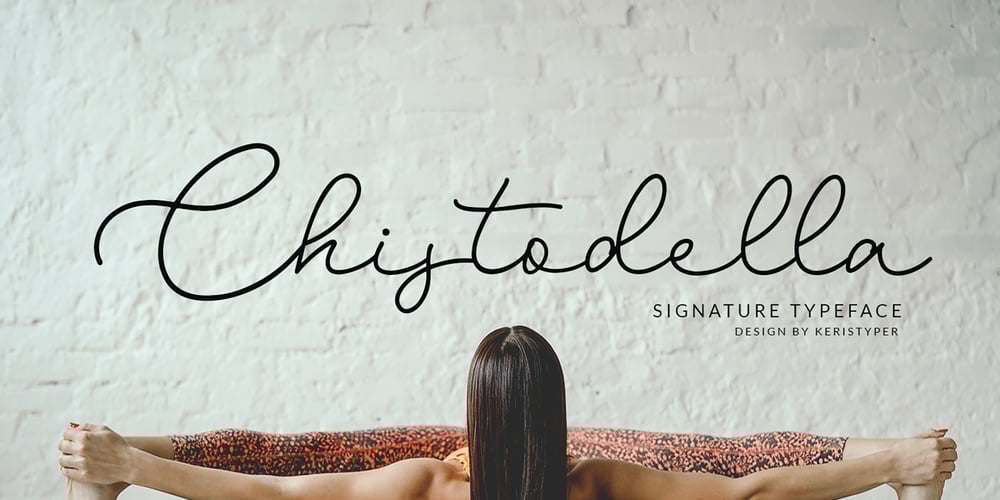
Chistodella Font Family was designed by Tezar Tantular and published by Keristyper Studio. Chistodella contains 1 styles and family package options. Chistodella is a calligraphy handwriting with classic style and elegant touch, inspired by lettering on the vintage. Which was created to meet the needs of your next design project. Carefully designed to work together in harmony for creating awesome typographic designs in a flash. This font is good for logo design, Social media, Movie Titles, Books Titles, short text even long text letters, and good for your secondary text font with sans or serif. Make a stunning work with Roselites font.Featured: -Standard Uppercase & Lowercase -Numeral & Punctuation -Multilingual : ä ö ü Ä Ö Ü ß ¿ ¡ -Alternate & Ligature -PUA encodedWe recommend programs that support the OpenType feature and the Glyphs panel such as Adobe applications or Corel Draw. so you can use all the variations of the glyphs. Hope you enjoy our fonts!